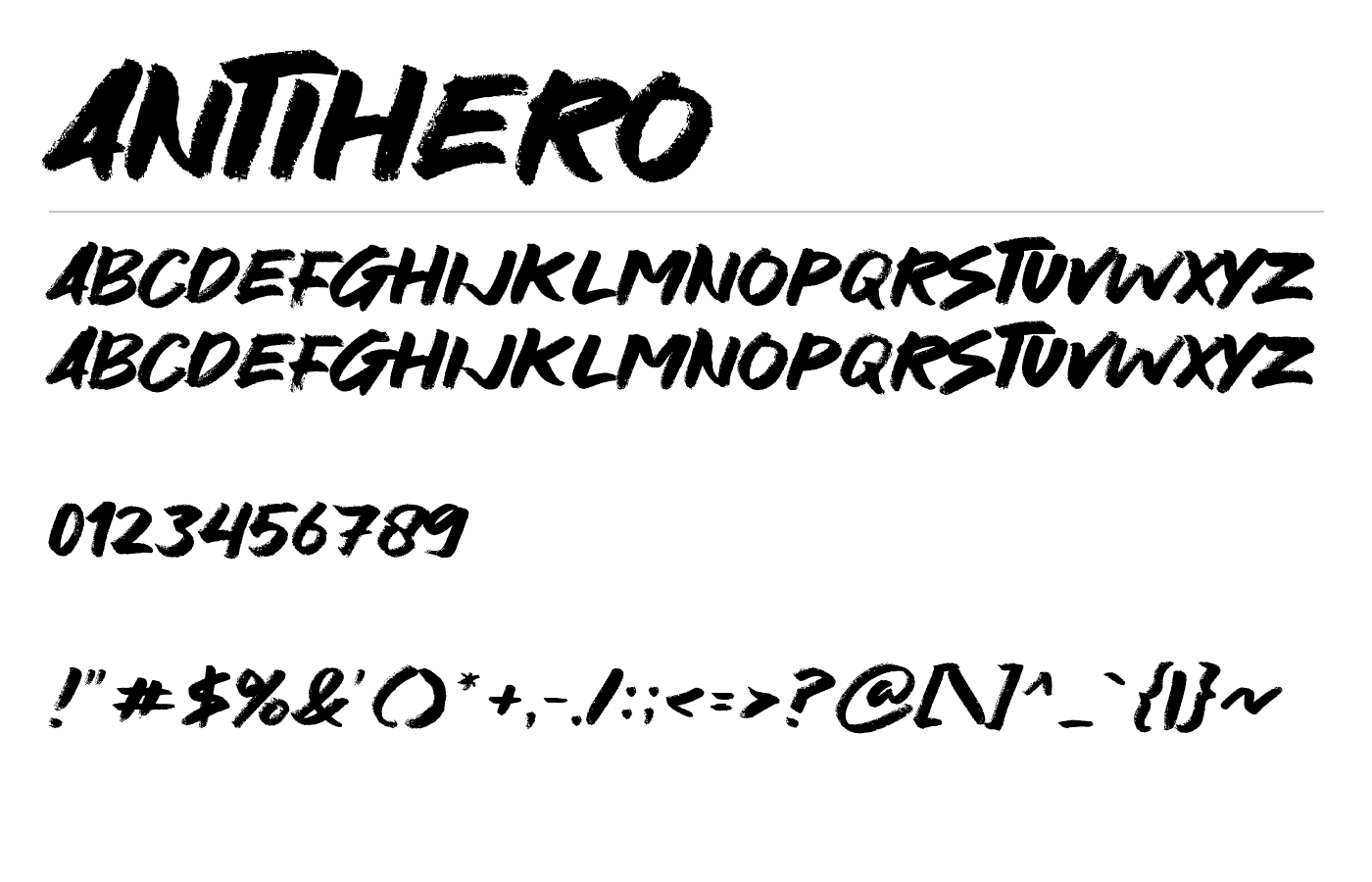
Antihero is a bold, brush-style script font that captures a raw, dynamic energy with its textured, hand-painted strokes. Its all-uppercase design, combined with an irregular, edgy look, makes it perfect for creating a rebellious and informal vibe, ideal for eye-catching headlines, logos, or branding that wants to stand out with a strong, youthful personality. This font works best when you want to convey creativity and attitude with an authentic, handmade feel.
Antihero Font
About Antihero Font